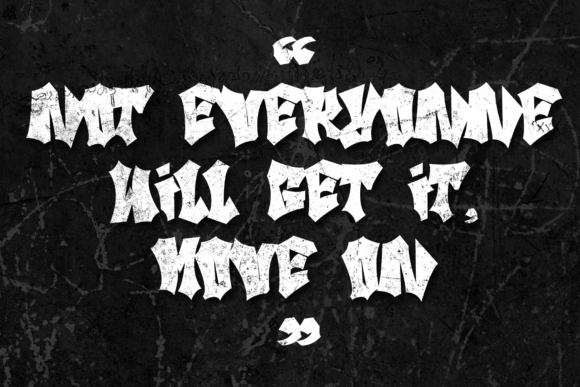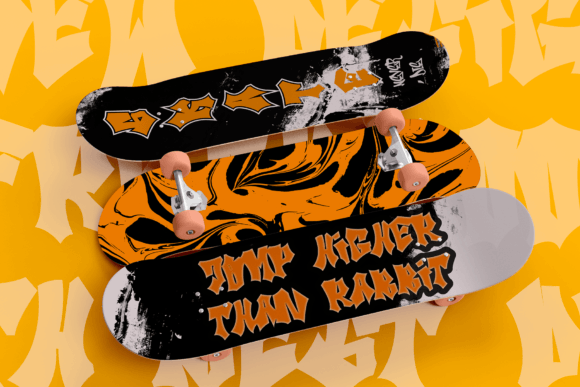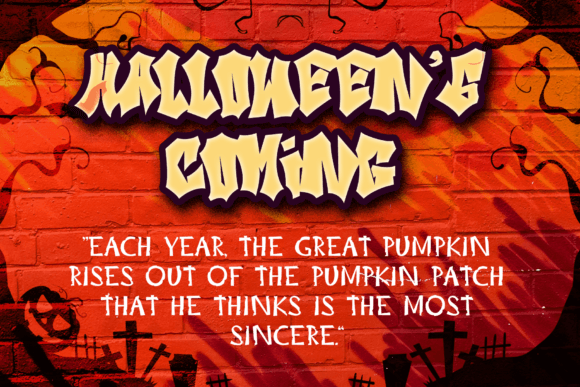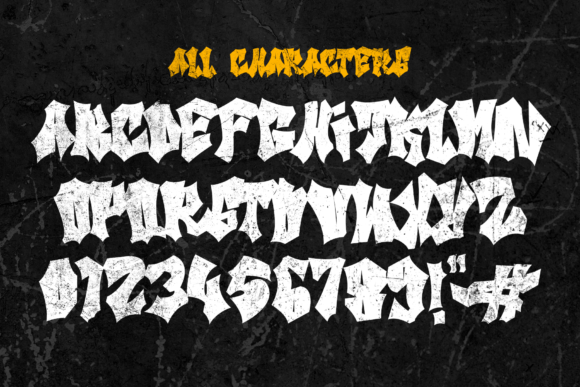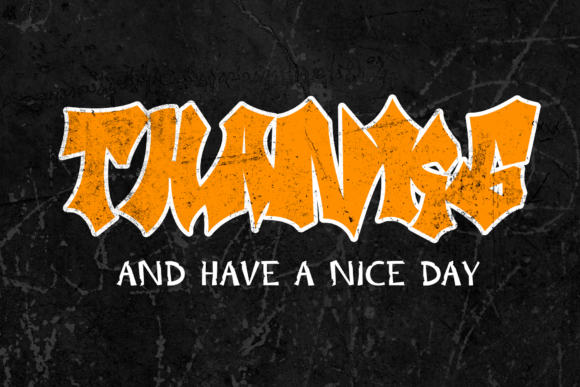
Bat Liar Font: Unleash the Urban Style with a Spooky Twist
In the realm of typography, fonts play a crucial role in conveying the tone and aesthetic of a design. For designers and crafters looking to add an edgy, urban flair to their projects, the Bat Liar Font is an exceptional choice. This spectacular display font, adorned with elements that resemble bat wings, is not only unique but also incredibly versatile. In this article, we’ll delve into the characteristics of the Bat Liar Font and explore its suitability for various projects, including streetwear, graffiti art, headlines, and Halloween designs.
The Unique Appeal of Bat Liar Font
Bat Liar Font stands out due to its distinctive design, which incorporates bat wing-like elements into its letters. This feature gives the font an urban, edgy look that can instantly elevate the visual impact of any design. The font’s unique style is perfect for designers who want to create bold, eye-catching pieces that exude a sense of rebellion and creativity.
Suitability for Various Projects
The Bat Liar Font’s versatility is one of its most appealing attributes. Its urban and somewhat spooky aesthetic makes it suitable for a wide range of projects. Here are some areas where this font truly shines:
- Streetwear: The Bat Liar Font’s bold and edgy design makes it a perfect fit for streetwear brands looking to create distinctive logos, slogans, or advertising materials. Its unique style can help brands stand out in a crowded market.
- Graffiti Art: Graffiti artists often seek fonts that are bold, expressive, and capable of conveying a strong message. The Bat Liar Font, with its dynamic and artistic design, is well-suited for graffiti projects that require a striking visual impact.
- Headlines: For editorial and digital content creators, the Bat Liar Font can be used to craft compelling headlines that capture the reader’s attention. Its unique design can add a touch of personality to news articles, blog posts, or social media updates.
- Halloween Designs: Given its bat wing-inspired elements, the Bat Liar Font is naturally suited for Halloween-themed designs. Whether it’s for invitations, decorations, or promotional materials, this font can help create a spooky and festive atmosphere.
Design and Crafting Applications
- Print Design: For print materials such as posters, flyers, brochures, and business cards, the Bat Liar Font offers a unique way to add personality and style. Its bold design ensures that text remains legible even at larger sizes.
The Bat Liar Font is a dynamic and visually striking typeface that can add an urban, edgy flair to a wide range of design projects. Its unique design, inspired by bat wings, not only makes it stand out but also lends itself to various creative applications. Whether you’re a designer looking to create bold graphics, a crafter aiming to personalize your projects, or simply someone who appreciates unique typography, the Bat Liar Font is an excellent choice. With its versatility and distinctive style, it’s poised to become a favorite among creatives seeking to make a statement with their work.